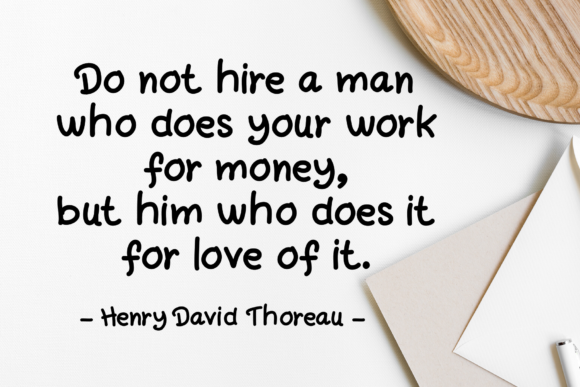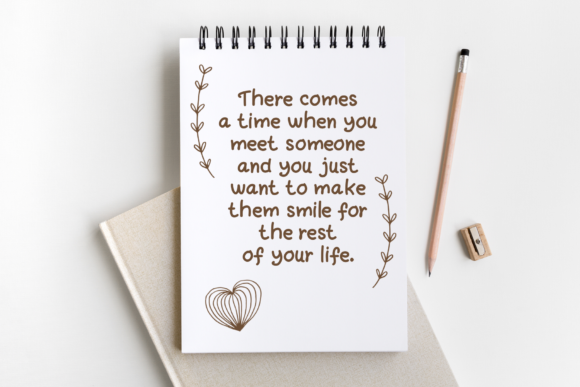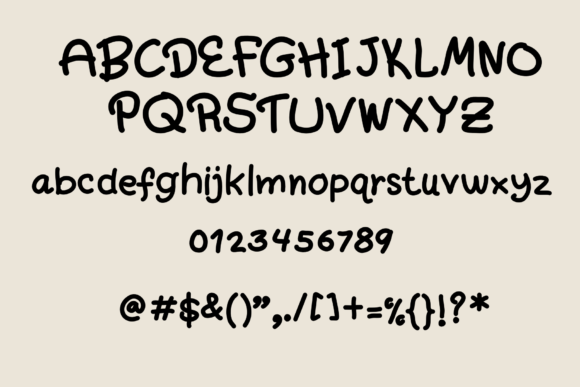
Introducing Classy Bold Font: Elevate Your Designs with Timeless Elegance
Are you a designer or crafter looking for a font that exudes sophistication and style? Look no further than Classy Bold Font, a stunning handwritten typeface that’s perfect for a wide range of creative projects. With its timeless design, Classy Bold is ideal for logos, branding, greeting cards, posters, magazines, social media posts, planner prints, and websites.
Handwritten fonts have a unique charm that can add a personal touch to any design. They evoke a sense of warmth, elegance, and sophistication, making them perfect for projects that require a human touch. Classy Bold Font is no exception, with its beautiful, flowing script that adds a level of refinement to any design.
What Makes Classy Bold Font Special?
So, what sets Classy Bold Font apart from other fonts? Here are just a few reasons why this typeface is a cut above the rest:
- Timeless style: Classy Bold Font has a classic, timeless design that never goes out of style. Its elegant script is perfect for designs that require a touch of sophistication.
- Versatility: This font is incredibly versatile, making it perfect for a wide range of creative projects, from logos and branding to greeting cards and social media posts.
- Easy to read: Despite its bold and elegant design, Classy Bold Font is easy to read, making it perfect for body text and headlines.
- Unique character: Classy Bold Font has a unique character that sets it apart from other fonts. Its handwritten design adds a personal touch to any design, making it perfect for projects that require a human touch.
Classy Bold Font is perfect for designers and crafters who want to add a touch of elegance to their projects. Whether you’re creating a logo, branding materials, or social media posts, this font is sure to impress. Here are just a few ways you can use Classy Bold Font:
- Logos and branding: Use Classy Bold Font to create a logo or branding materials that exude sophistication and style.
- Greeting cards: Add a touch of elegance to your greeting cards with Classy Bold Font.
- Posters and magazines: Use Classy Bold Font to create eye-catching posters and magazine headlines.
- Social media posts: Elevate your social media posts with Classy Bold Font, perfect for creating engaging and stylish content.
- Planner prints: Add a touch of sophistication to your planner prints with Classy Bold Font.
- Websites: Use Classy Bold Font to create a stylish and elegant website that stands out from the crowd.
Tips for Using Classy Bold Font
Here are a few tips for using Classy Bold Font in your designs:
- Pair with a sans-serif font: Pair Classy Bold Font with a sans-serif font to create a stylish and modern contrast.
- Use for headlines and titles: Use Classy Bold Font for headlines and titles to add a touch of elegance to your design.
Classy Bold Font is a stunning handwritten typeface that’s perfect for designers and crafters who want to add a touch of elegance to their projects. With its timeless style, versatility, and unique character, this font is sure to impress. Whether you’re creating logos, branding materials, or social media posts, Classy Bold Font is the perfect choice. So why wait? Download Classy Bold Font today and elevate your designs with timeless elegance!